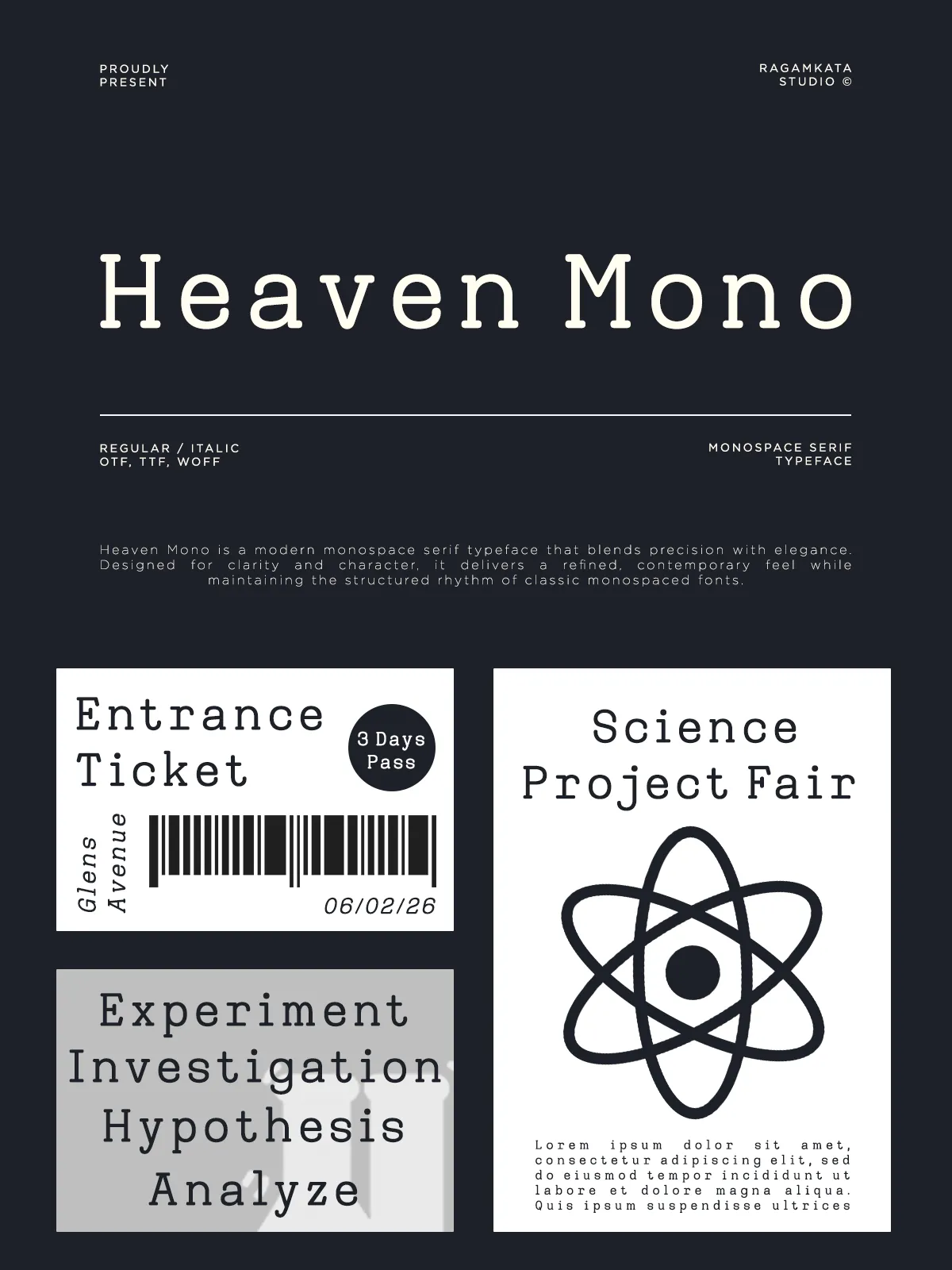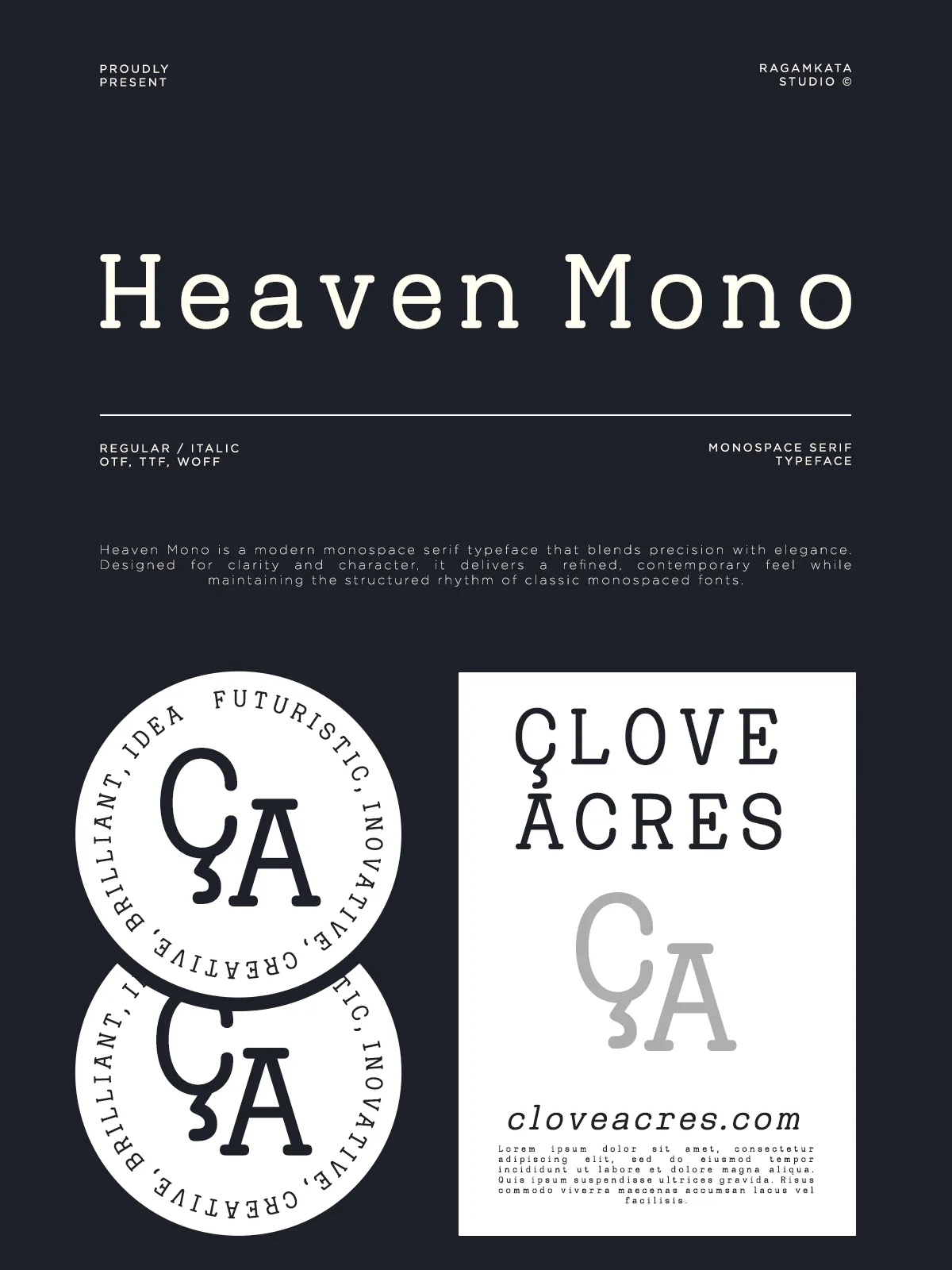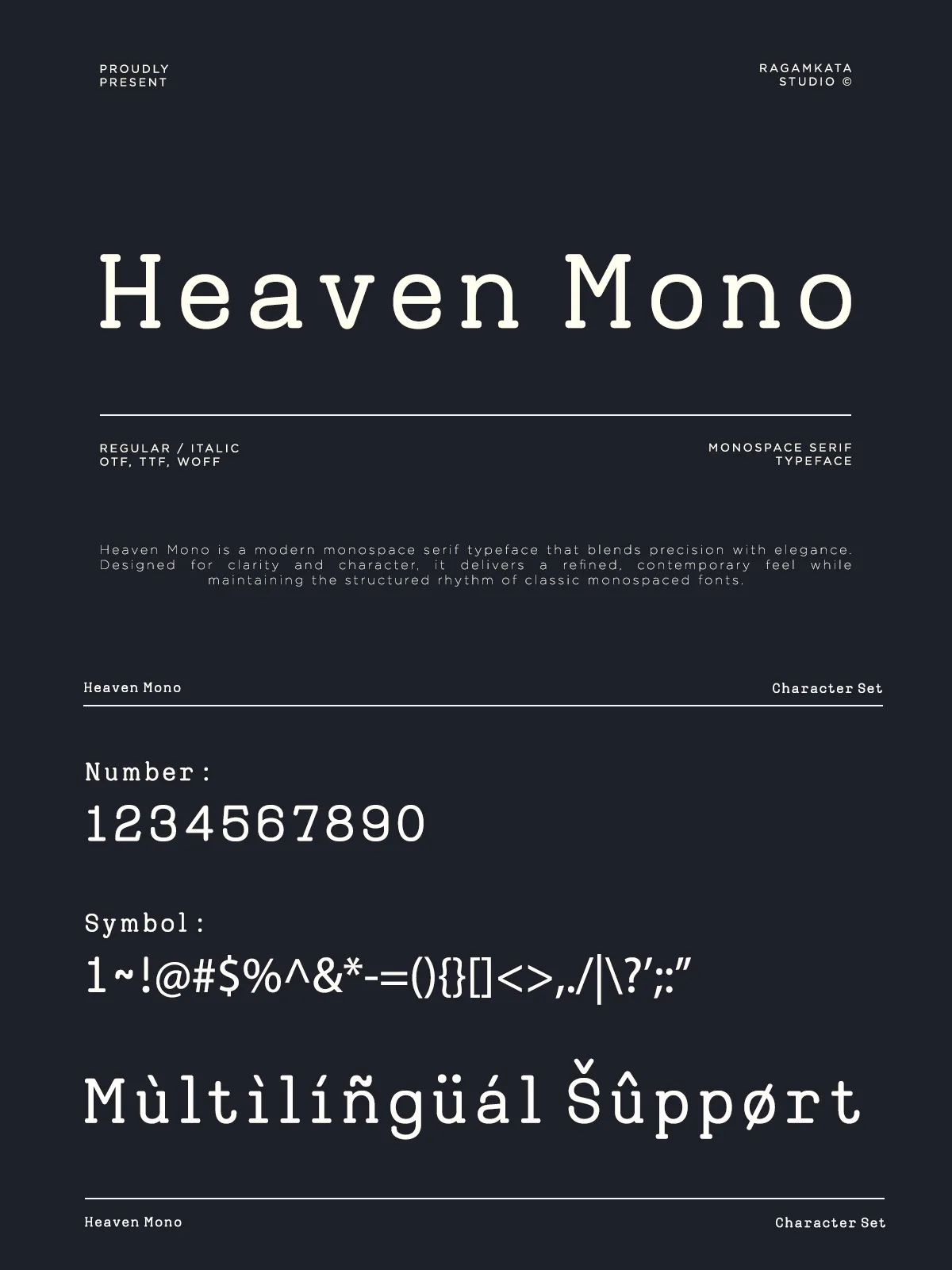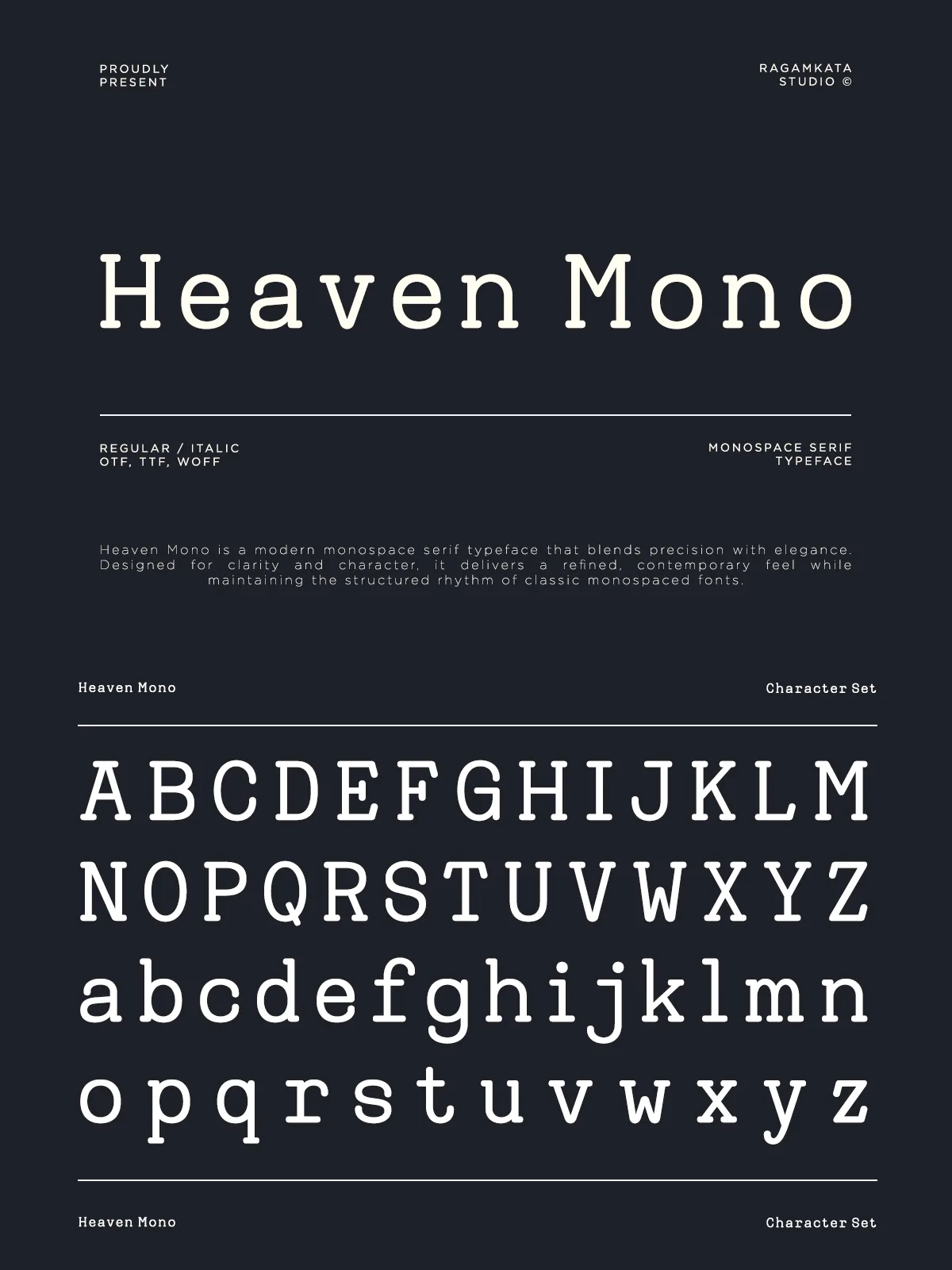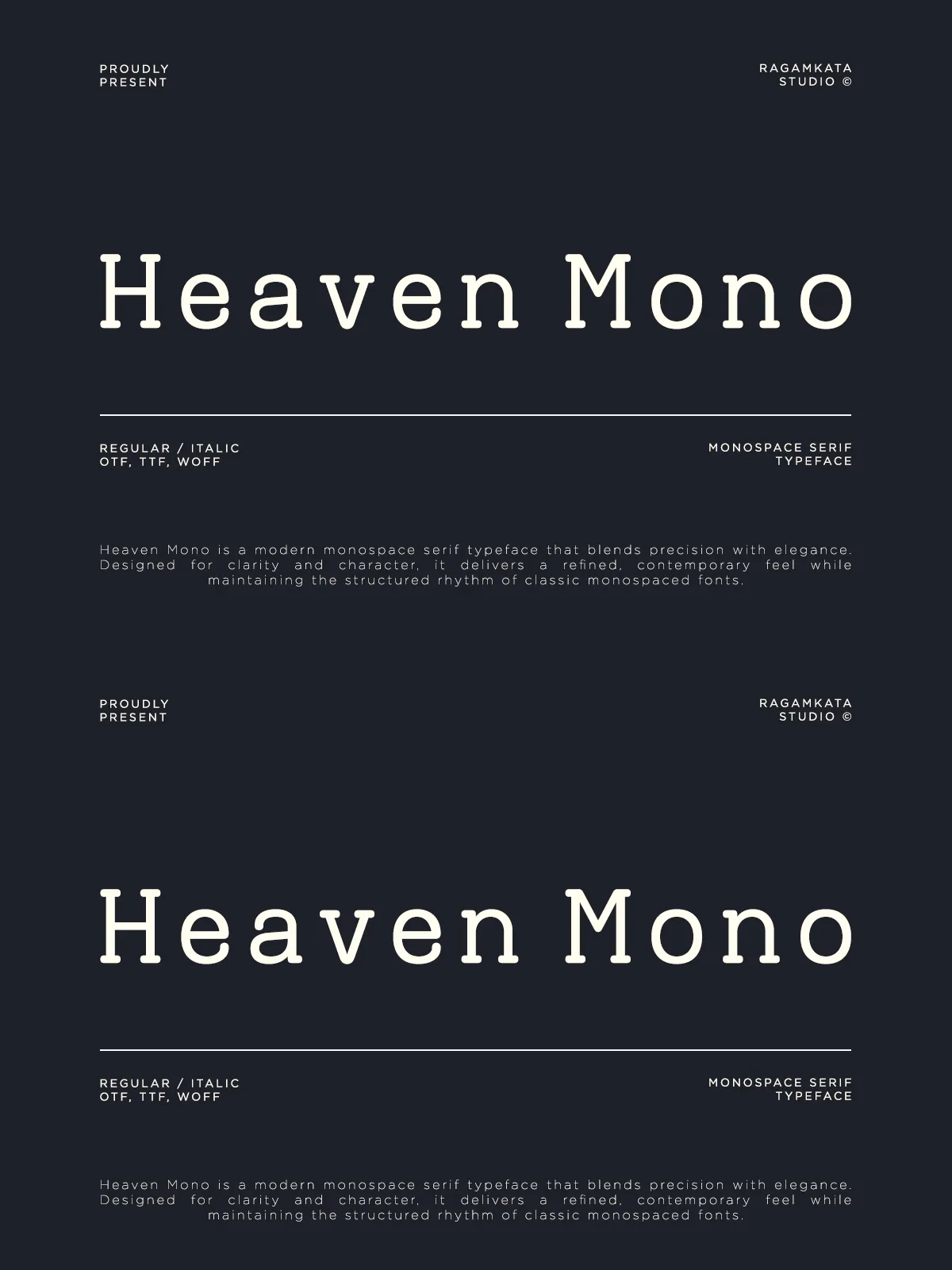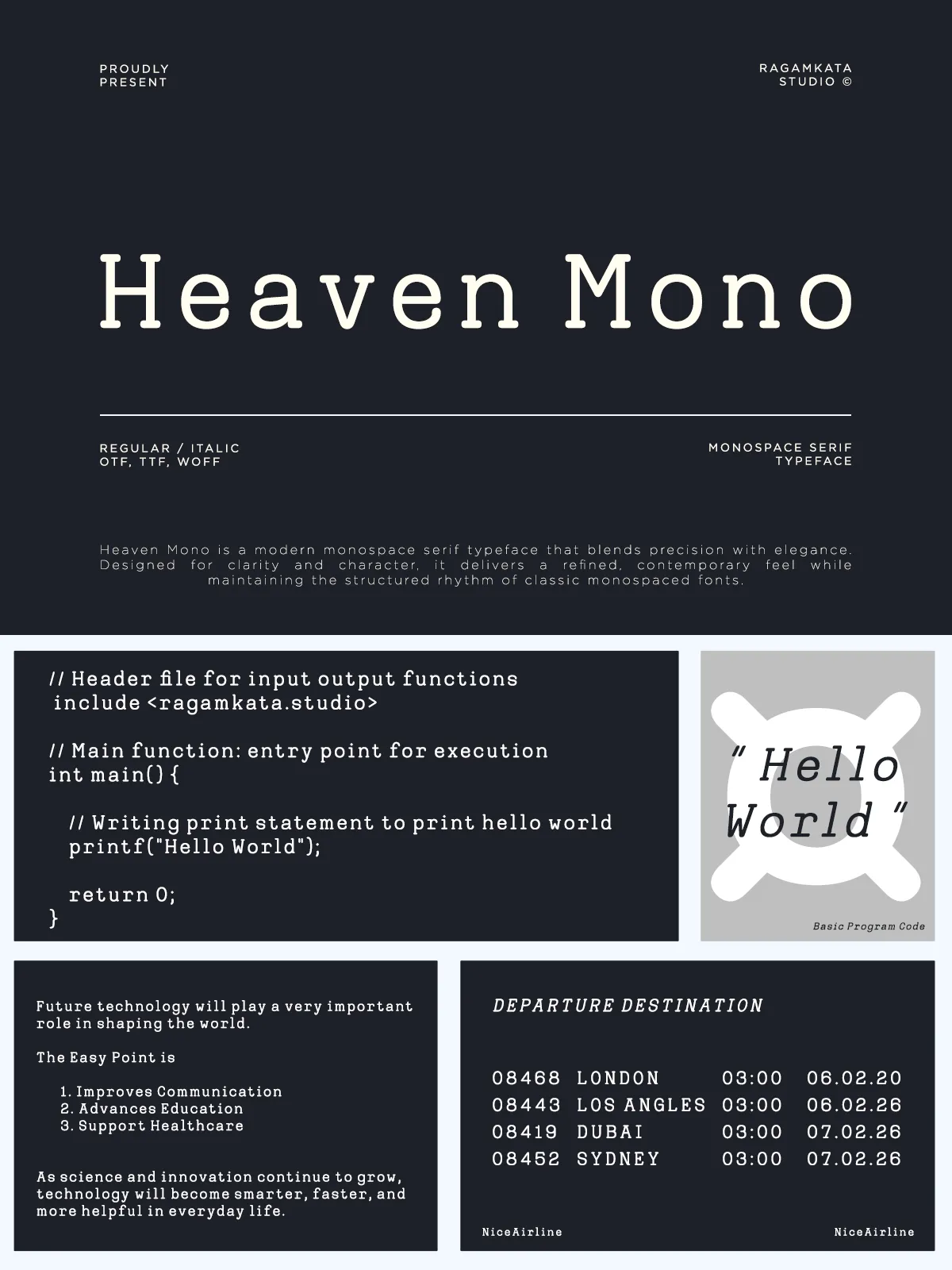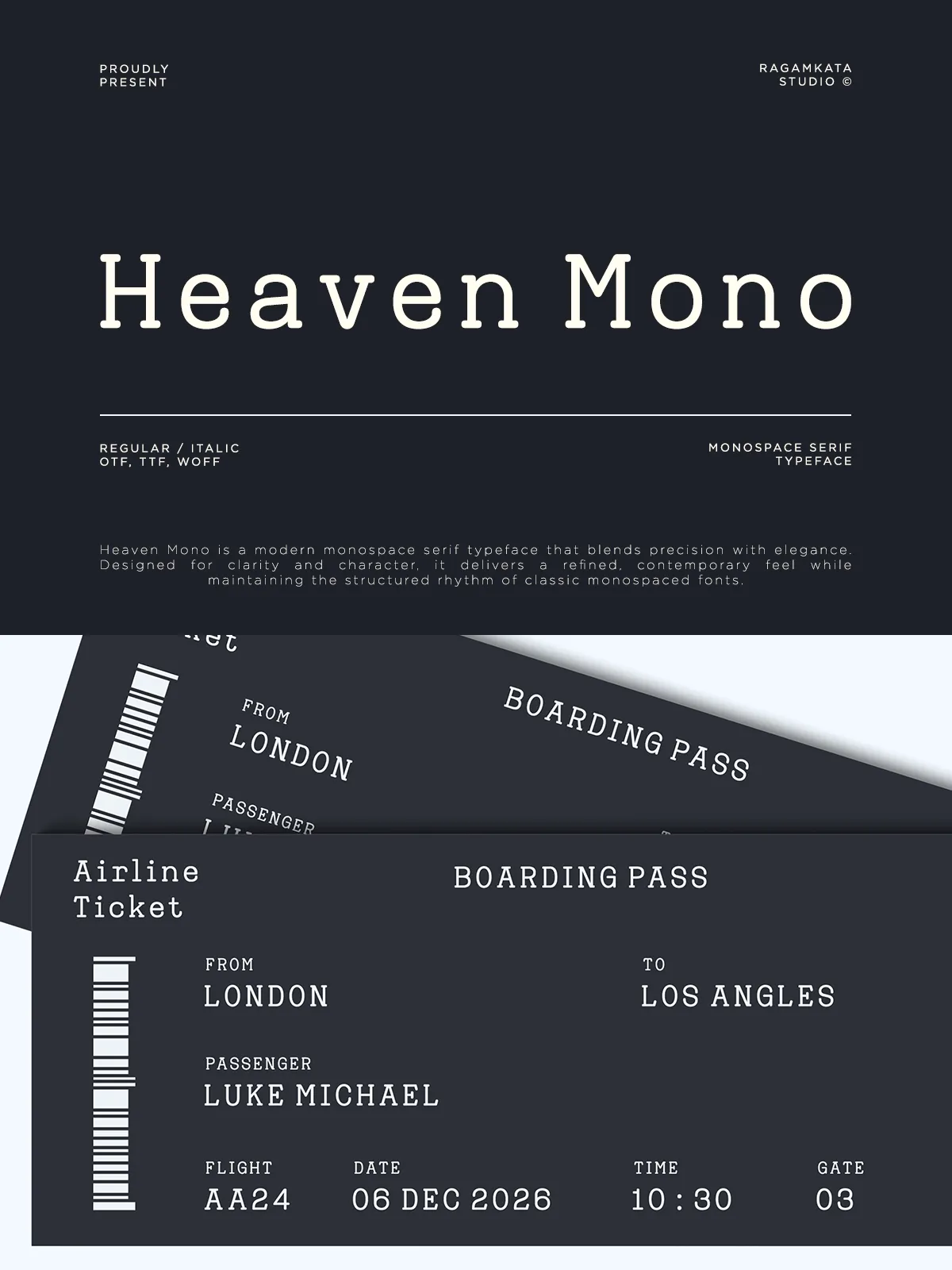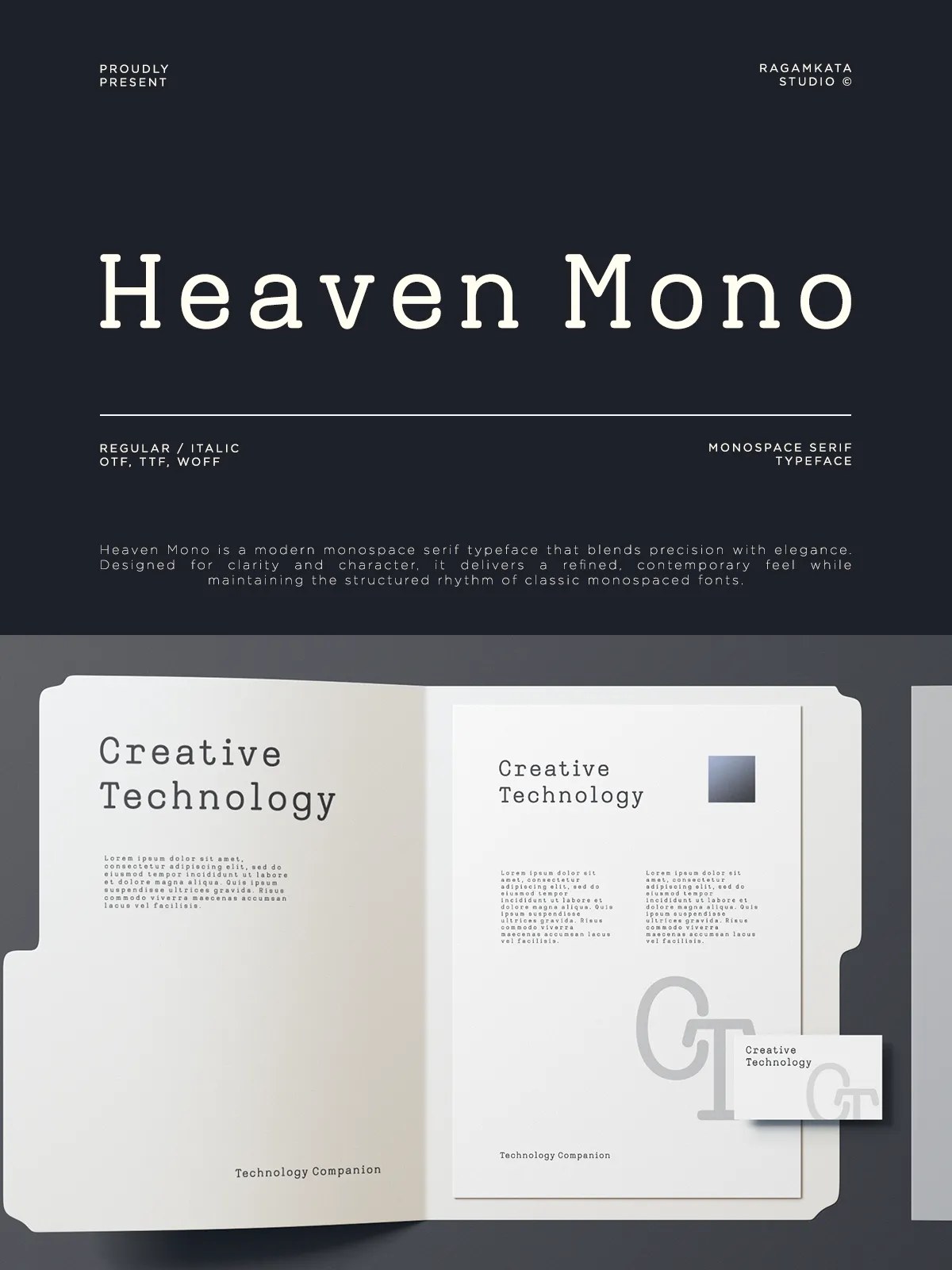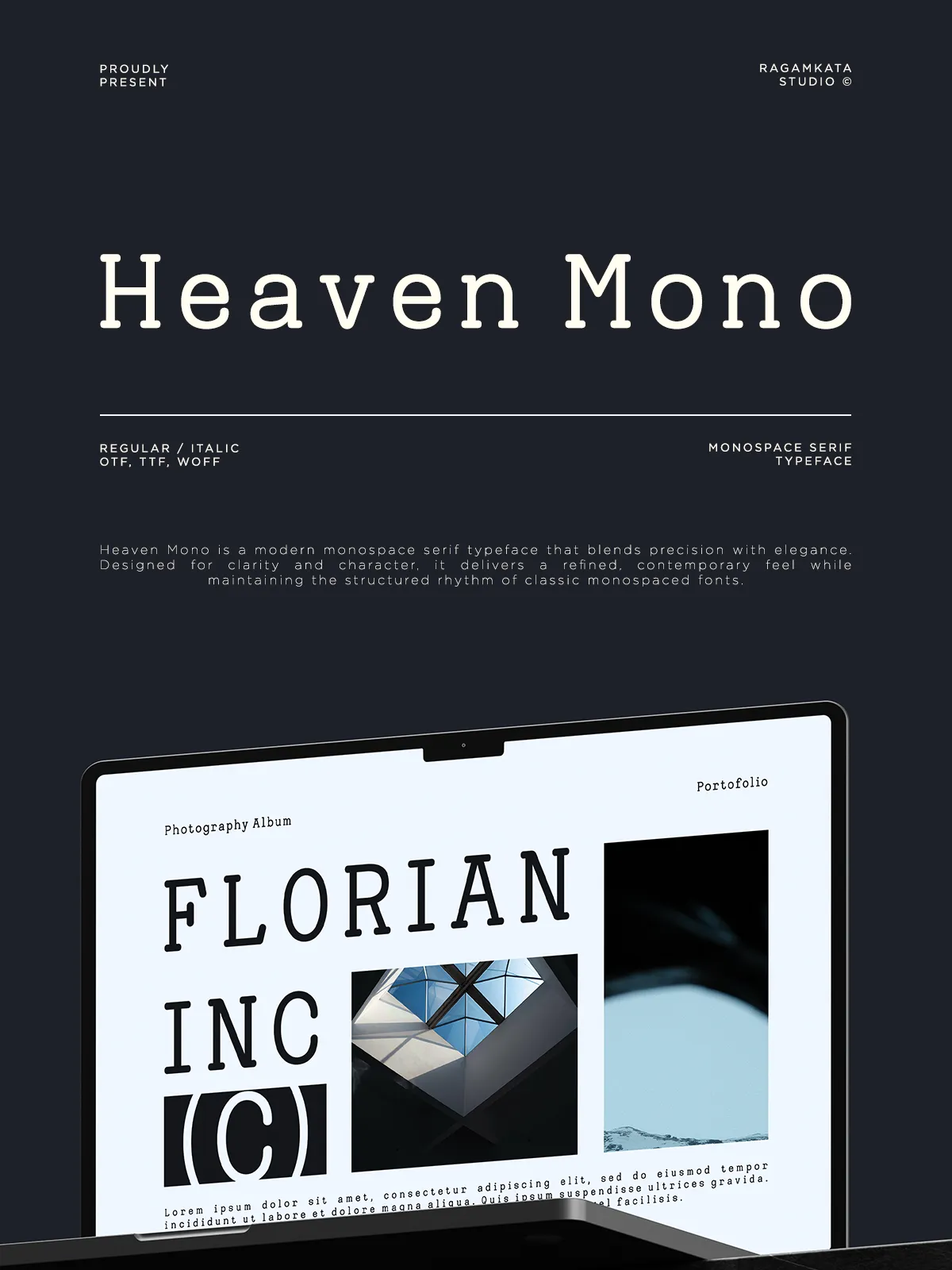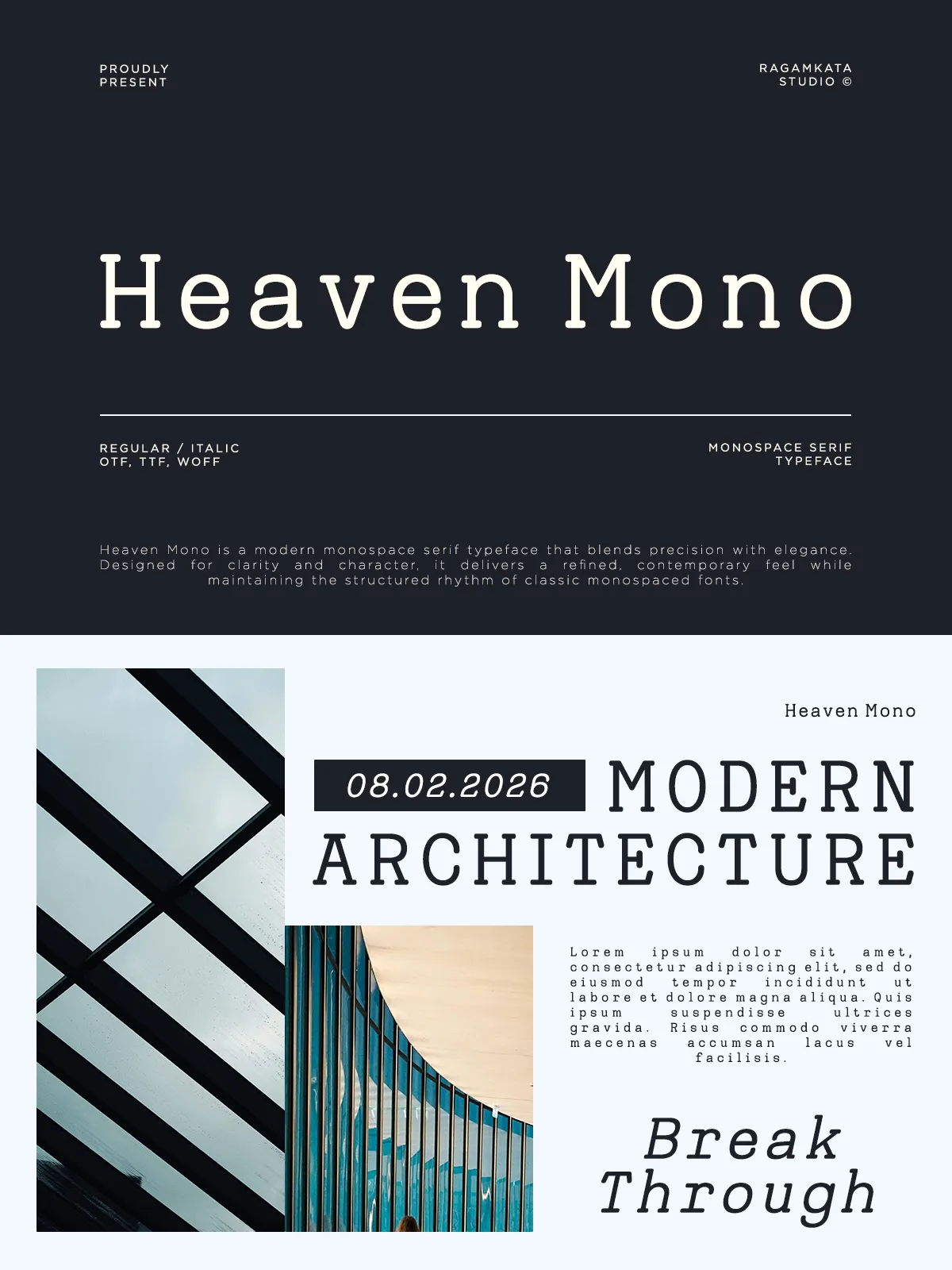
Heaven Mono – Monospace Serif
Step into the future of typography with Heaven Mono — a revolutionary monospace serif typeface that redefines what technical fonts can be. More than just a tool for code or data, Heaven Mono fuses the strict alignment of monospaced design with the grace of soft serif accents, creating a visual rhythm that feels both intentional and inspired. Every letterform is meticulously balanced, with sharp edges, refined curves, and subtle detailing that elevate readability without sacrificing structure.
Whether you’re crafting a sleek developer dashboard, designing a luxury tech brand identity, or building a futuristic editorial layout, Heaven Mono delivers a confident, clean, and modern aesthetic that commands attention — without shouting.
Engineered for Creators Who Demand Both Logic and Style
Heaven Mono wasn’t built for compromise. It was engineered for professionals who refuse to choose between clarity and character. Designed with a deep understanding of modern workflow demands, this typeface offers flawless adaptability across every digital and print medium:
• Coding & Development Environments — Ideal for IDEs, terminal interfaces, and code documentation, where consistent spacing ensures readability.
• UI/UX & Product Design — Creates a structured yet elegant visual hierarchy in app interfaces, dashboards, and digital experiences.
• Branding & Identity Systems — Perfect for tech startups, creative studios, and luxury digital products that value sophistication and precision.
• Editorial & Print Design — Works beautifully in magazines, posters, and packaging, where typographic consistency and visual impact are essential.
• Experimental & Artistic Projects — Its balanced asymmetry invites creative experimentation in generative art, motion graphics, and conceptual visuals.
• The Harmony of Structure and Soul
The magic of Heaven Mono lies in its ability to feel both technical and human. The monospaced grid provides rhythm and predictability, while the delicate serif strokes add warmth, personality, and a touch of timeless elegance. This duality makes it ideal for projects where you need precision — but also want to evoke emotion.
• Built for the Entire Creative Ecosystem
Heaven Mono is not a one-trick pony. It’s a full-fledged font family with two core styles:
• Heaven Mono Regular — The foundation of clarity and reliability.
• Heaven Mono Italic — Adds dynamic emphasis, perfect for headlines, quotes, or editorial highlights.
Plus, full support for:
• Numbers and Symbols — From currency and dates to mathematical and technical notation.
• Multilingual Character Set — Supports Latin, Greek, and Cyrillic scripts, ensuring global usability.